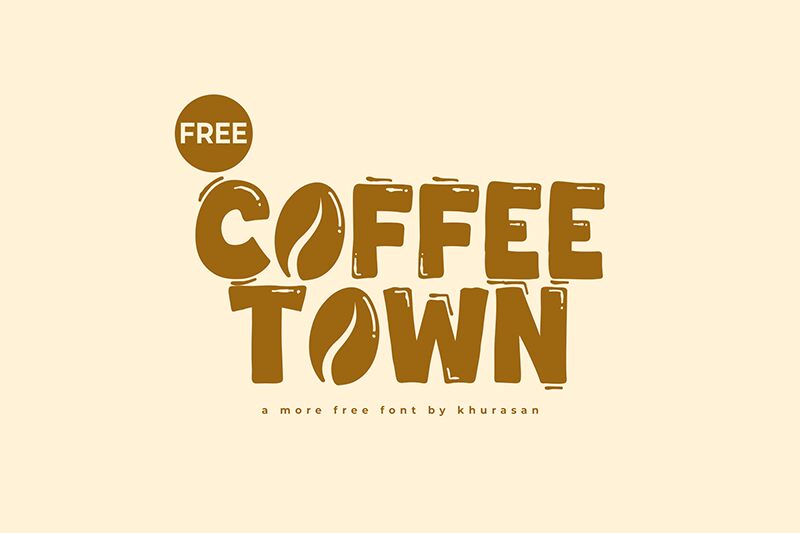
Coffee Town font by Khurasan is a bold cartoon display font inspired by vintage coffee shop signs and advertisements. Its bold letters have irregular shapes that communicate a handmade or casual look. While letters are chunky and blocky, they also had small imperfections and inconsistencies in width that add to the organic feel. Lastly, the font mimics texture by using horizontal white stripes which is a feature rarely seen.